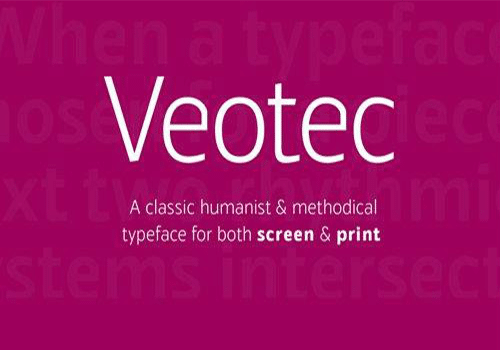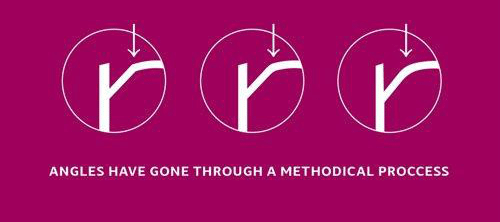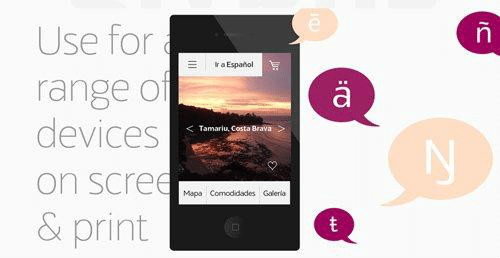
Veotec is a classic humanist sans that skilfully works for both screen and print due to its steep and precise angles enabling more negative space. Not only does this methodical approach improve legibility and readability at small sizes, it allows the bolder weights to feel harmonised and consistent without the compromise of this legibility.
Angles are refined and considered with a balance between sharp and round curves adding a unique feature to this font. This also gives a modern and appealing feel at large sizes. Details include 6 well constructed weights with a full European character set, manually edited kerning, which is more open for on-screen devices, ligatures and alternatives.